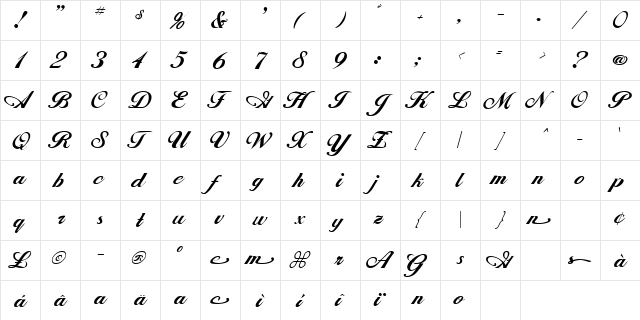
ANNEBERG Regular
Design Context for ANNEBERG Typeface
ANNEBERG is a composed and adaptable typeface that performs quietly and consistently across a wide range of design contexts.